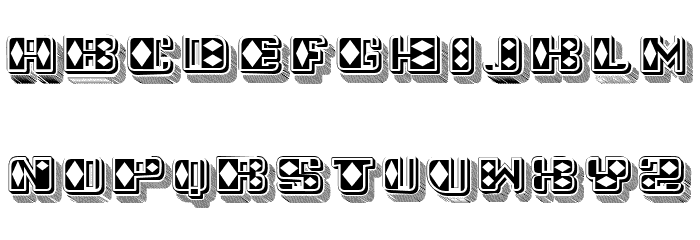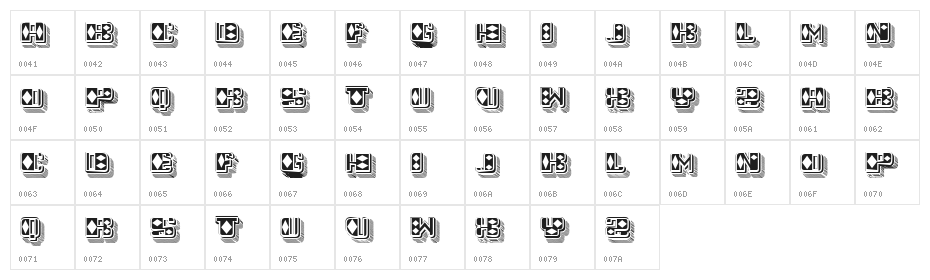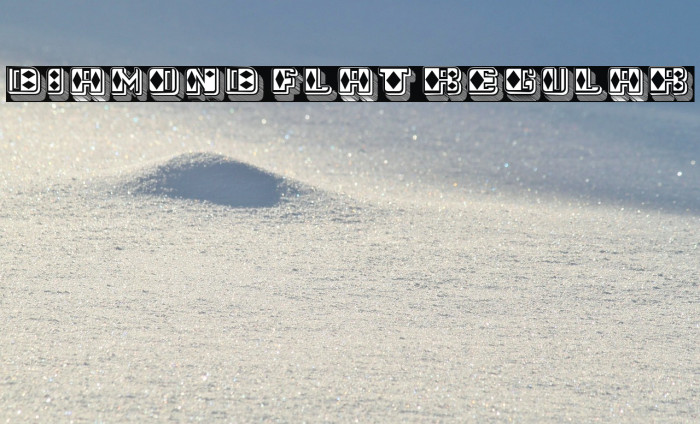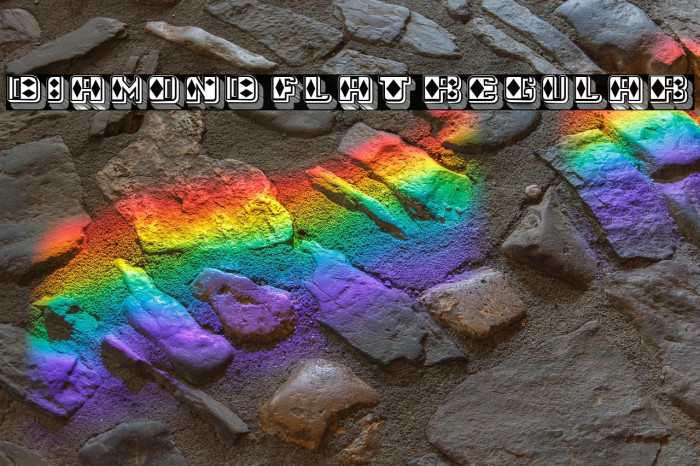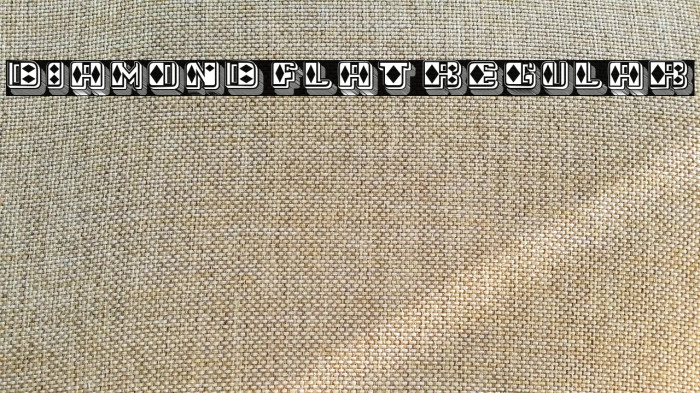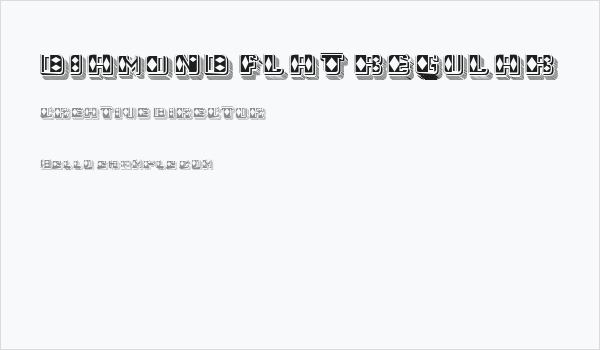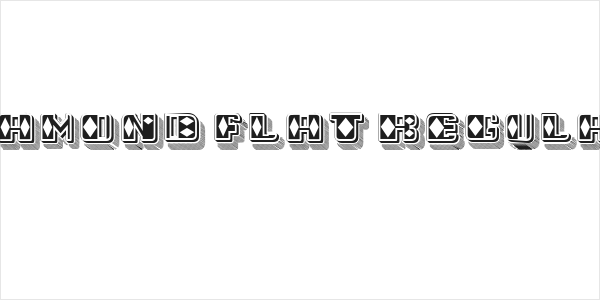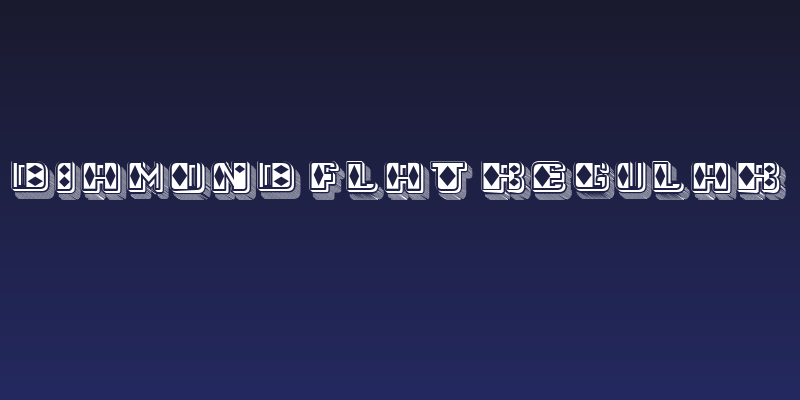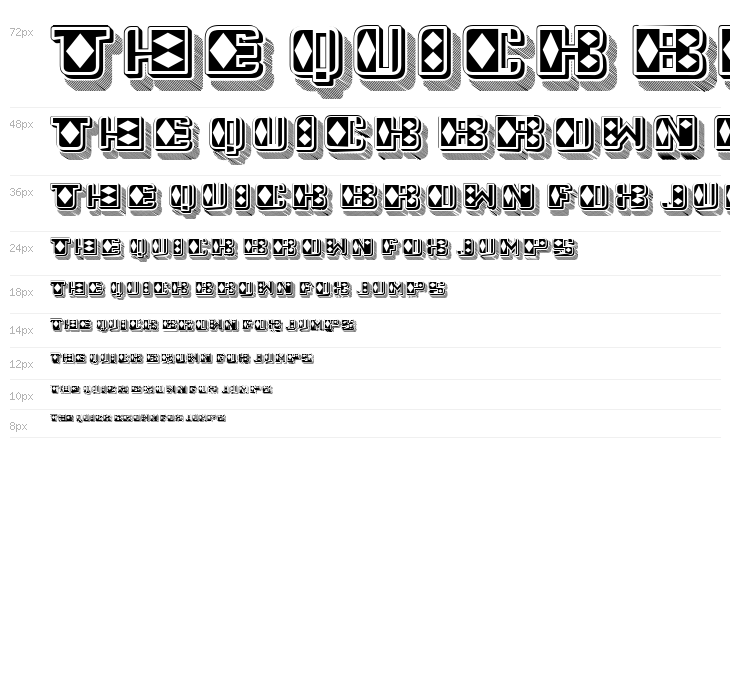
Diamond Flat Regular Font
Diamond Flat Regular Description
This font features a bold, decorative style with a three-dimensional effect. Each character is designed with intricate patterns and geometric shapes, giving it a unique and eye-catching appearance. The letters are uppercase and have a shadow effect that adds depth and dimension. The font's design is reminiscent of vintage or retro styles, making it suitable for projects that require a bold and artistic touch. The characters are evenly spaced, ensuring readability while maintaining their decorative appeal.
| Proposed Projects | Ideal for posters, album covers, branding, and any design project that requires a striking and artistic font. |